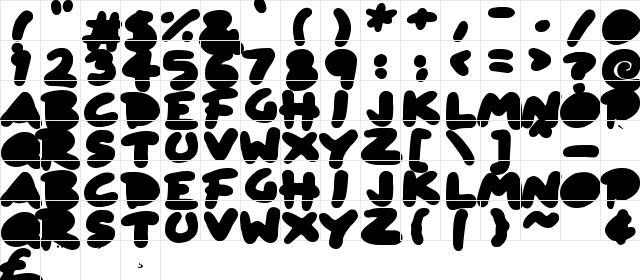
Blob Toon Shadows Regular
Design Context for Blob Toon Shadows Typeface
Blob Toon Shadows brings ornamental detail and strong personality to headlines and identities, where visual impact matters more than quiet functionality.
Font Pairing: Pair with a clean neutral sans-serif for body copy to let Blob Toon Shadows's character lead without overwhelming the composition.
Pro Tip: Treat Blob Toon Shadows as the centrepiece of your typographic hierarchy. One strong heading set in a decorative face can carry an entire layout.